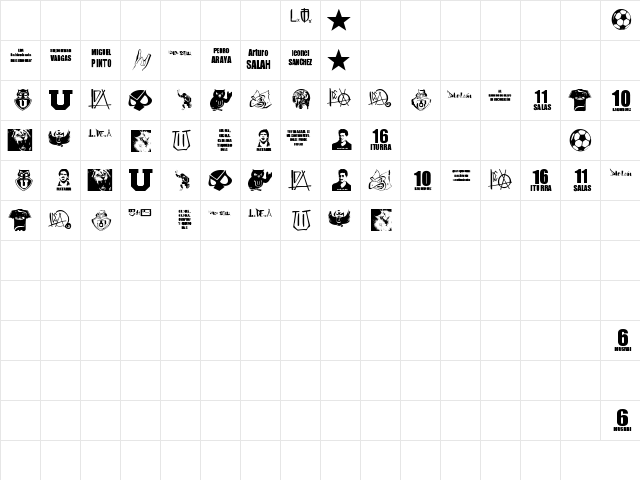
l de A Regular Font Preview
l de A Regular
l de A Regular Font Details
Design Context for l de A Typeface
l de A is a composed and adaptable typeface that performs quietly and consistently across a wide range of design contexts.